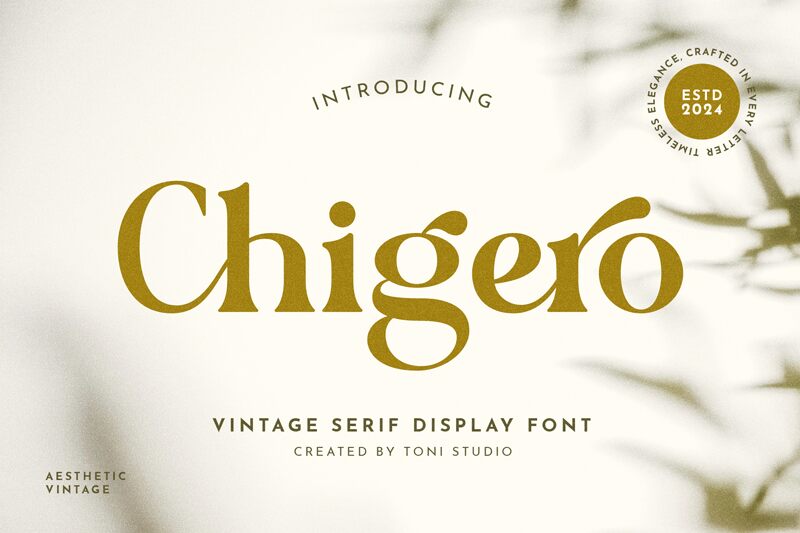
Chigero font by ToniStudio is a striking serif font that blends elegance with boldness. Its most captivating feature is the playfully exaggerated curves and flourishes, offering a sophisticated yet dynamic aesthetic. This font's artistic flair makes it ideal for headlines, branding, and editorial design where capturing attention is paramount.
For designers seeking a blend of classic and contemporary styles, Chigero offers versatility in projects ranging from luxurious logos to eye-catching posters. The unique design of the letters adds character to any text, making it stand out on both digital and print mediums.